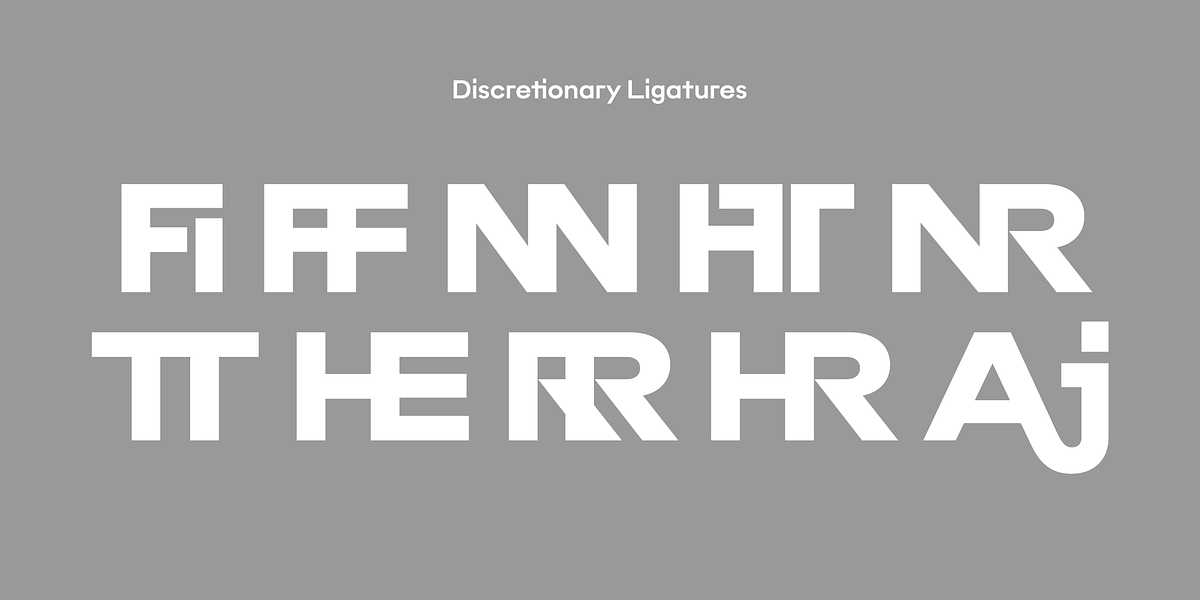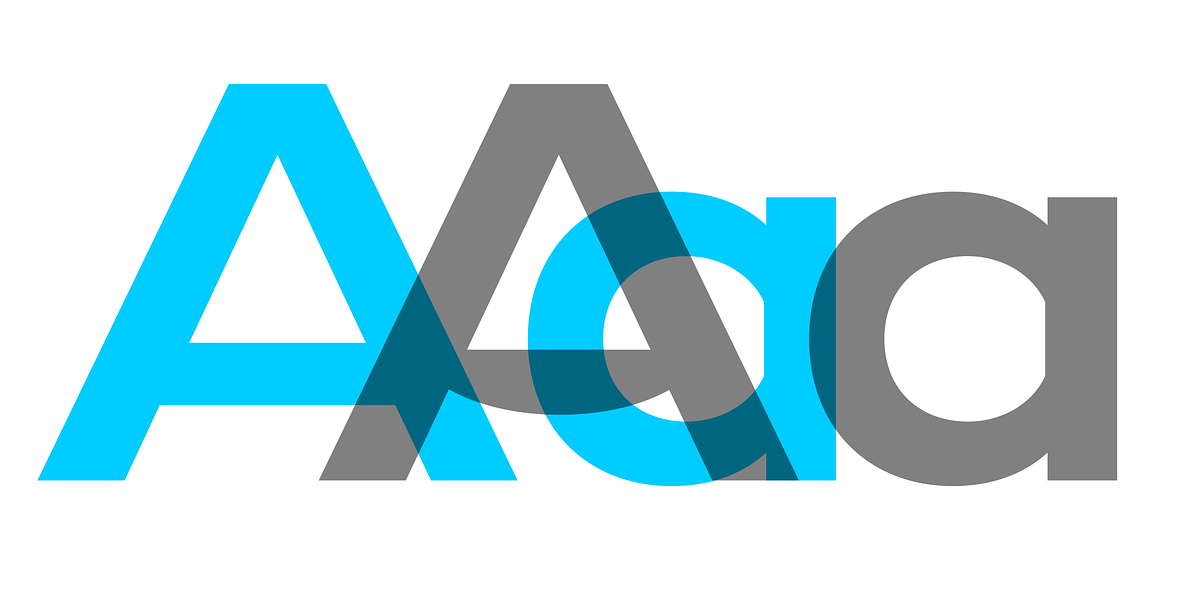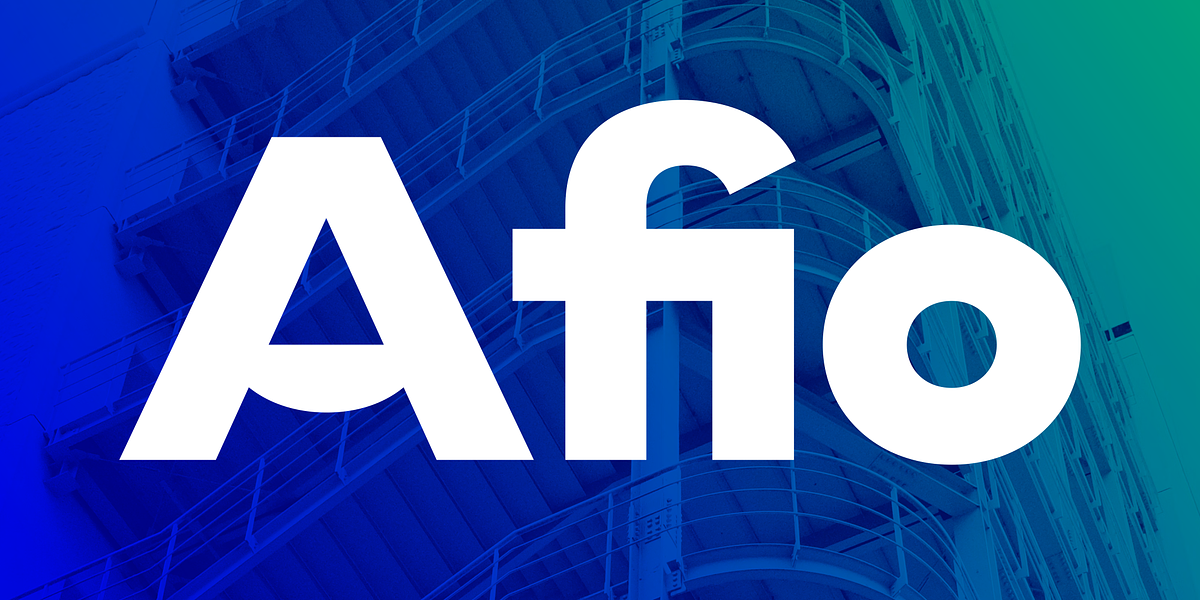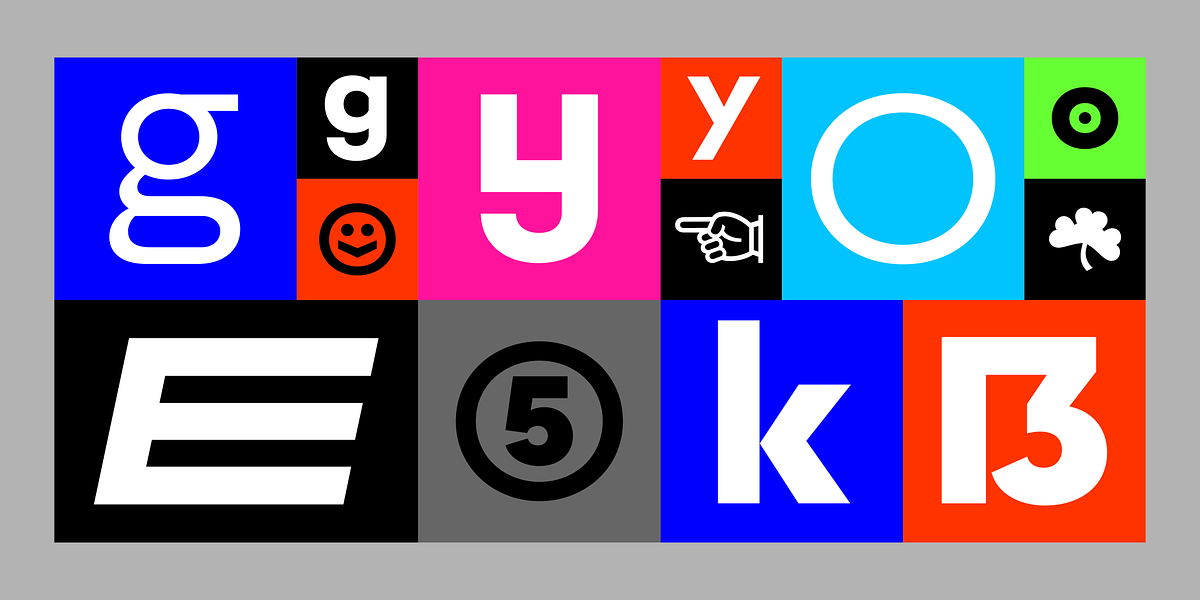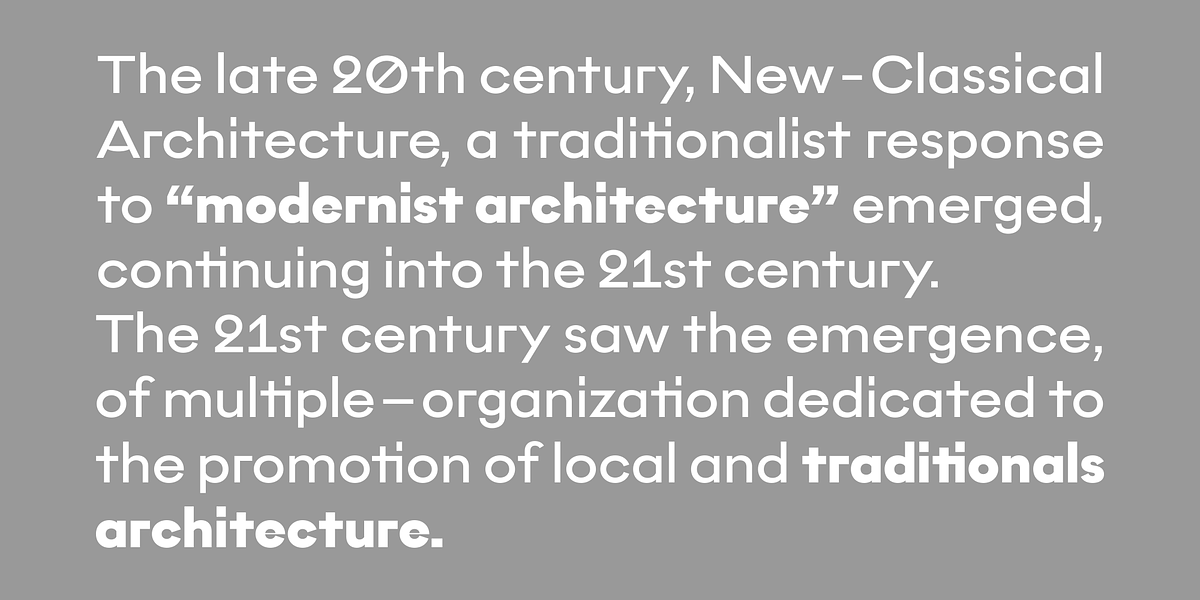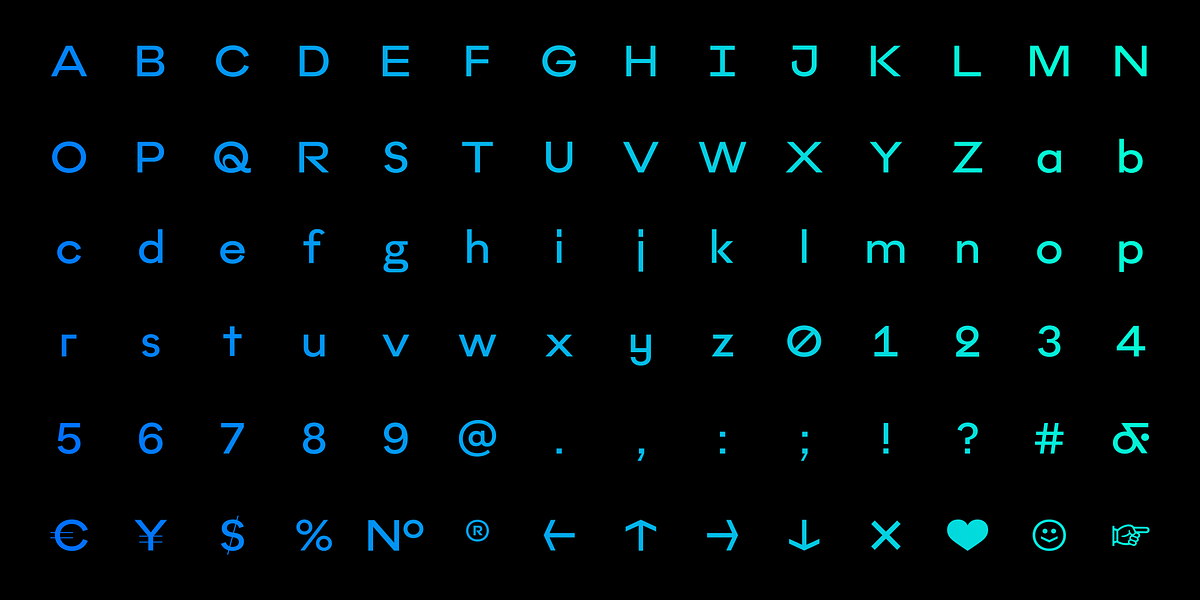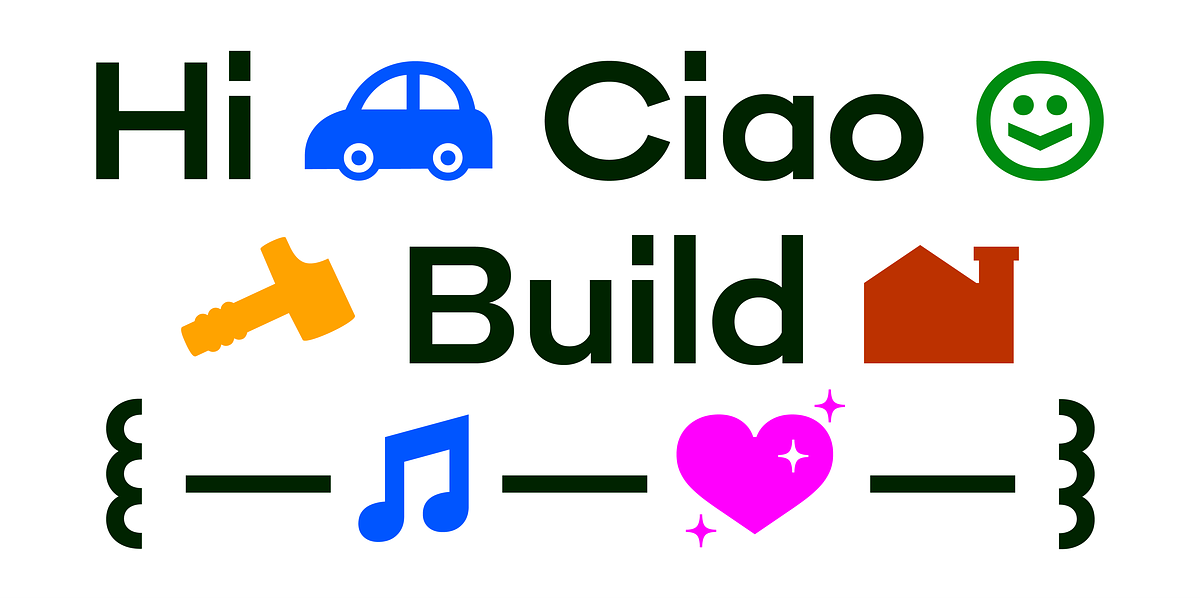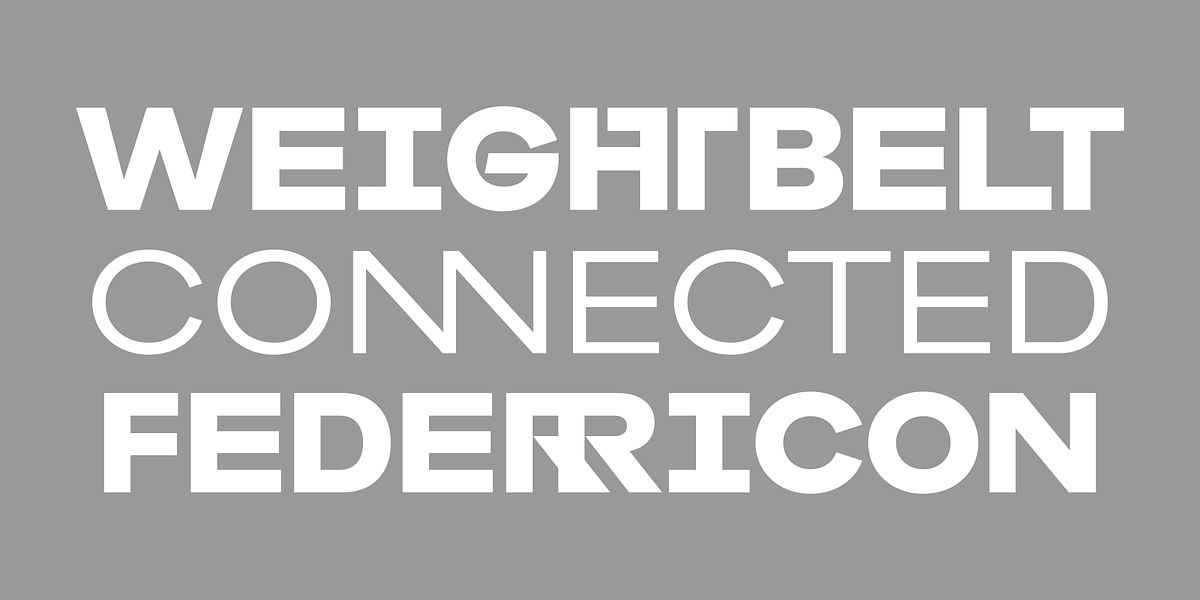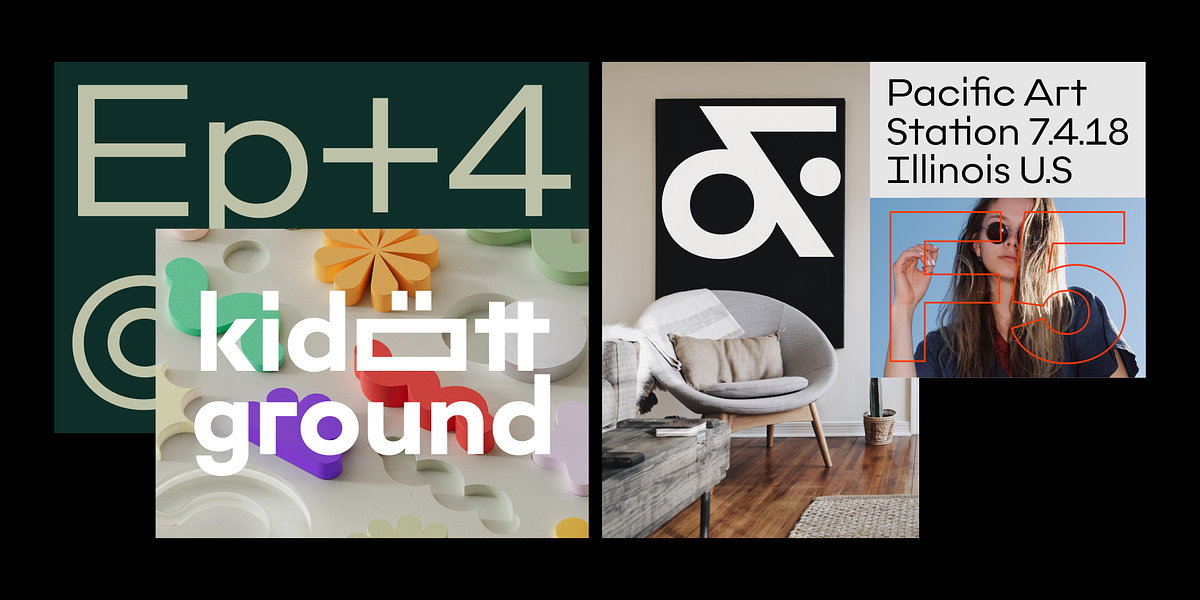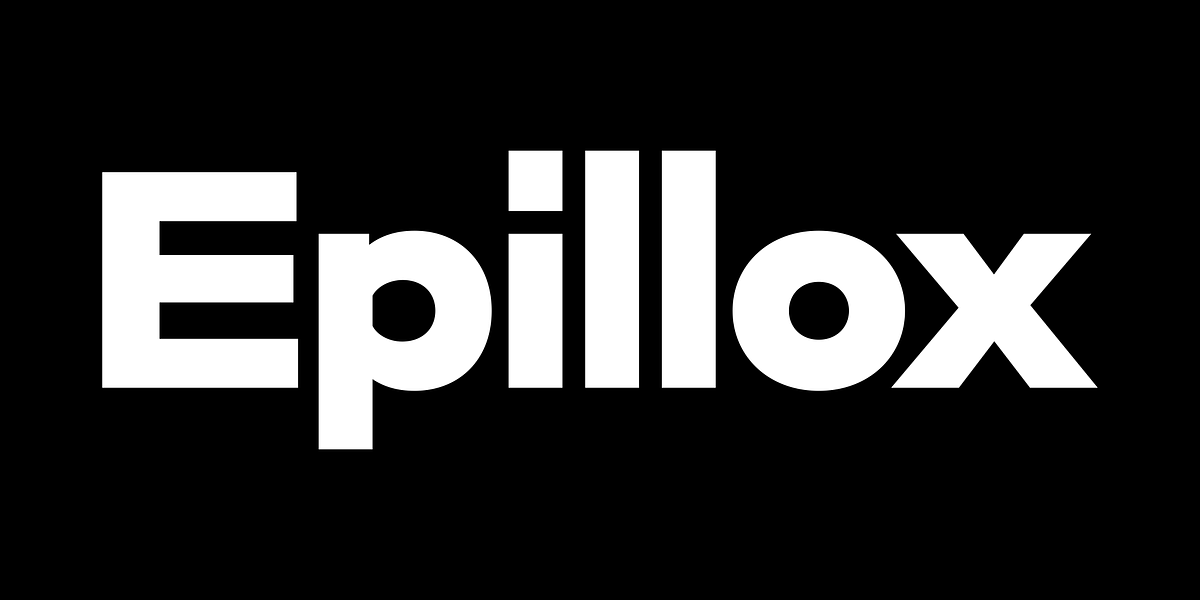
Epillox
Epillox is a modern geometric sans serif typeface inspired by the classic Futura designed by Paul Renner. Created with meticulous attention to detail and referencing original production drawings, Epillox offers a blend of geometric precision and avant-garde alternates.